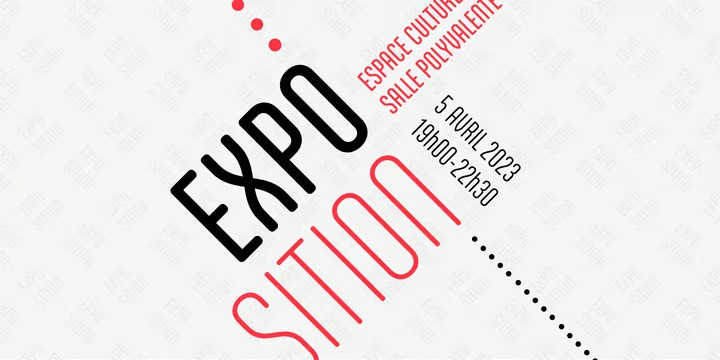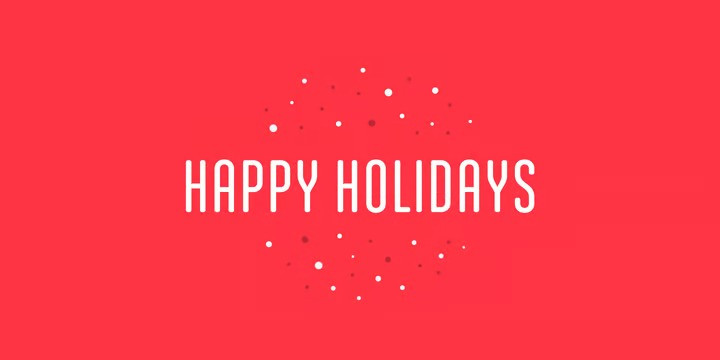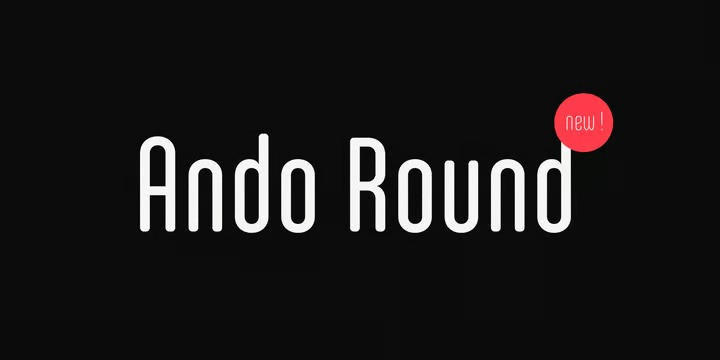
Ando Round Font
Ando Round Sans Serif Font Family. This is the rounded version of Ando, an elegant geometric typeface with smooth curves, designed for headlines.
Six styles are available, with the same OpenType features as the original: stylistic alternates, case sensitive forms, tabular figures, and more!